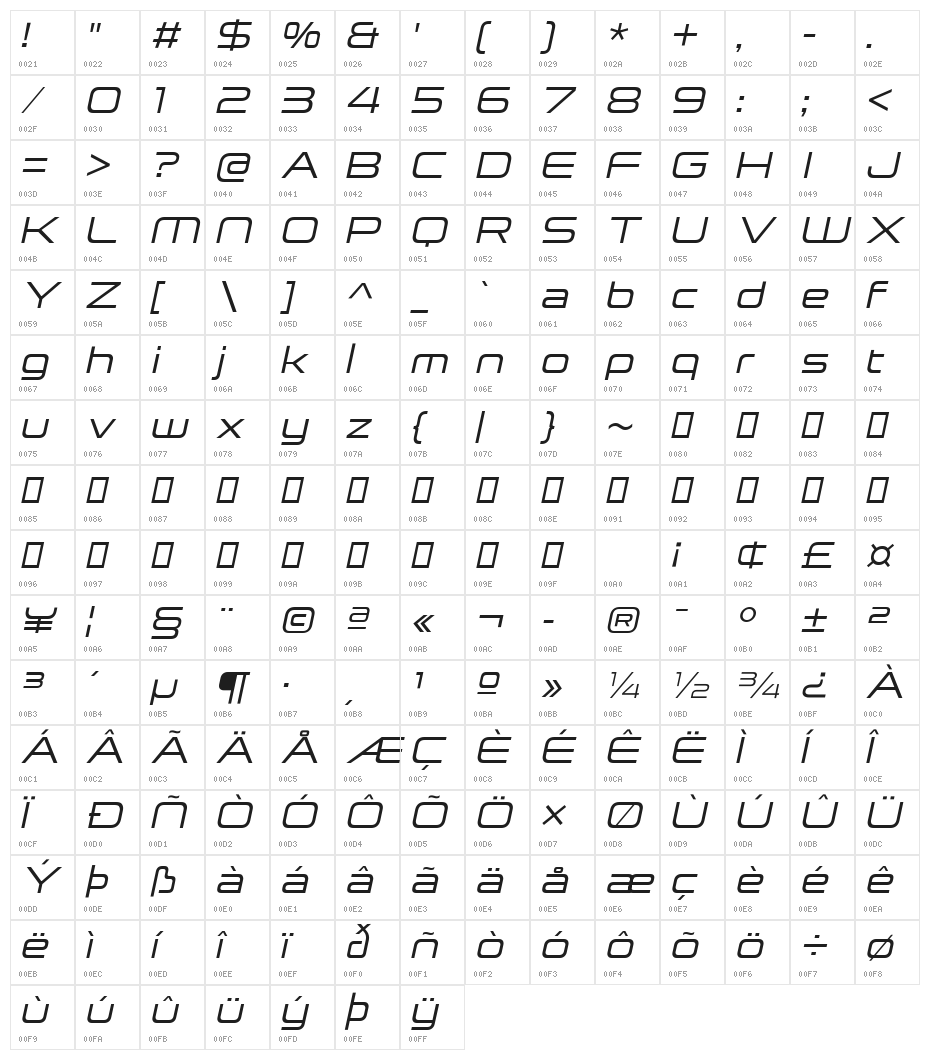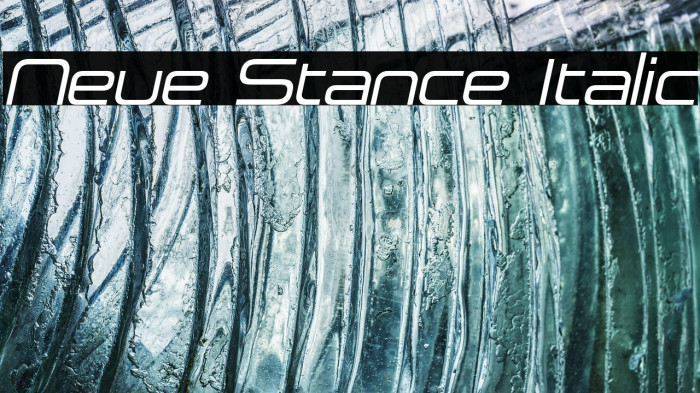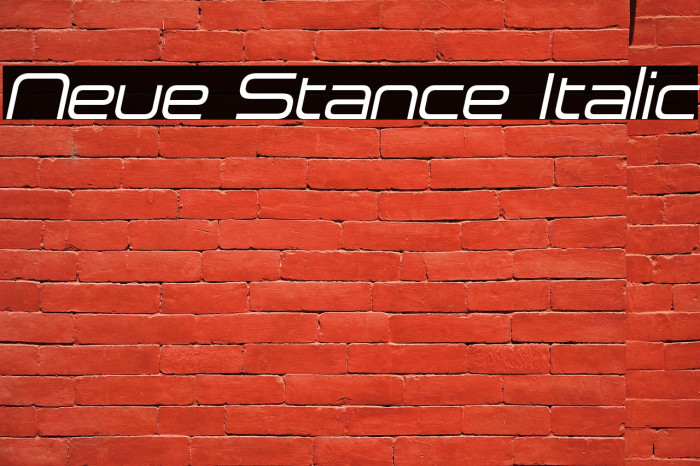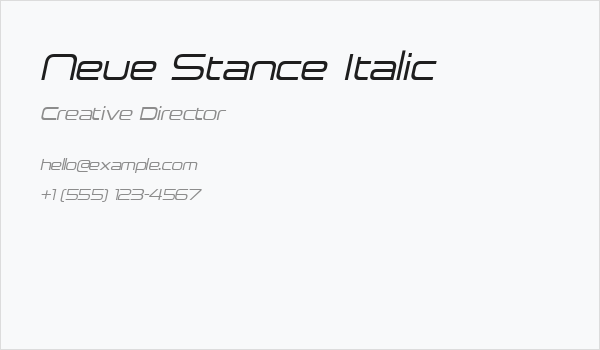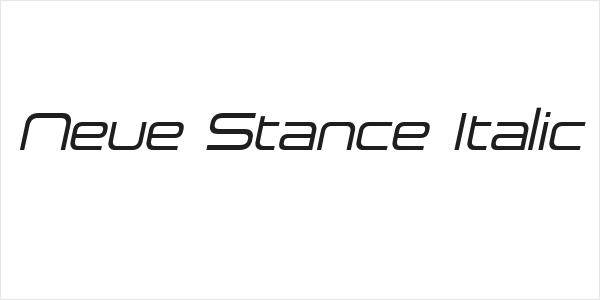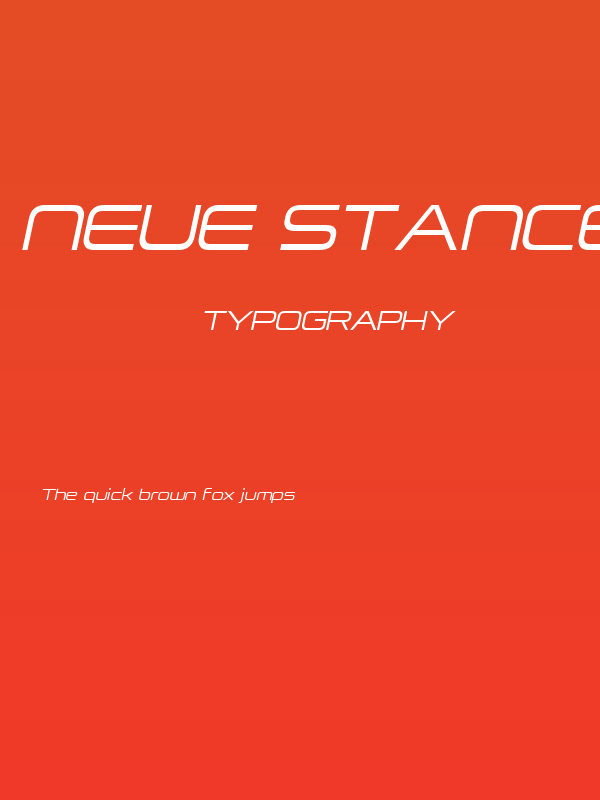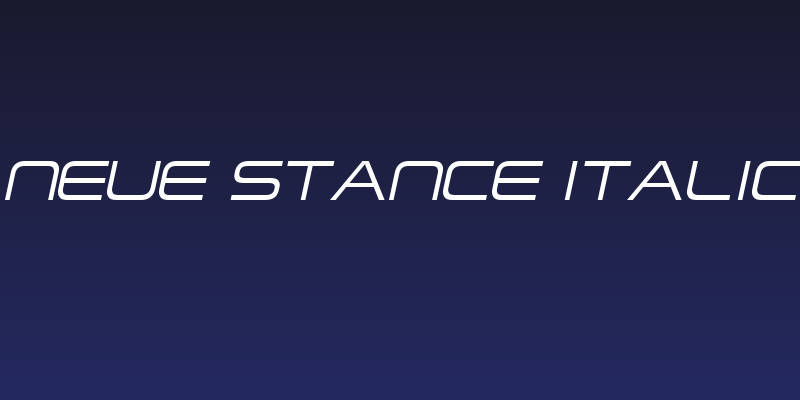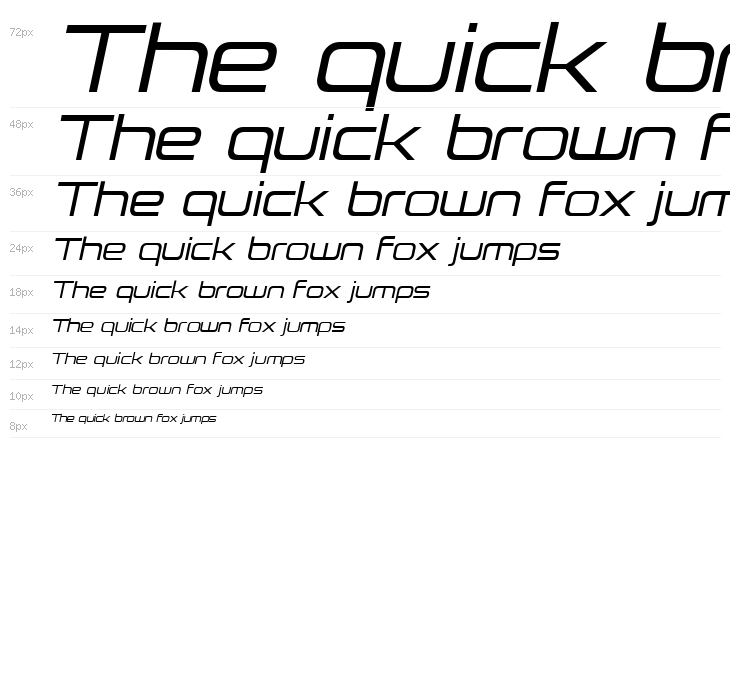
Neue Stance Italic Font
Neue Stance Italic Description
This font exhibits a sleek, modern design with a distinct italic slant, giving it a dynamic and forward-moving appearance. The characters are crafted with precision, featuring clean lines and a geometric structure that enhances readability while maintaining a stylish aesthetic. The uppercase and lowercase letters are well-proportioned, and the numerals are consistent with the overall design, ensuring uniformity across different text elements. Special characters are included, adding versatility for various applications. The font's contemporary style makes it suitable for projects that require a modern and professional look.
| Use Case | Headlines, Logos, Digital interfaces |
| Proposed Projects | Ideal for branding, advertising, digital interfaces, and editorial design where a modern and dynamic appearance is desired. |